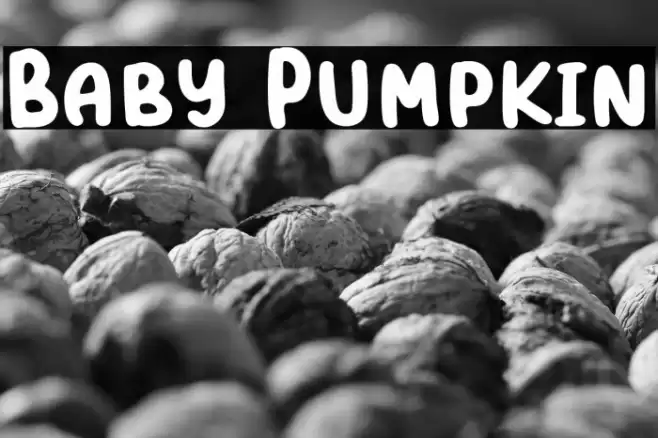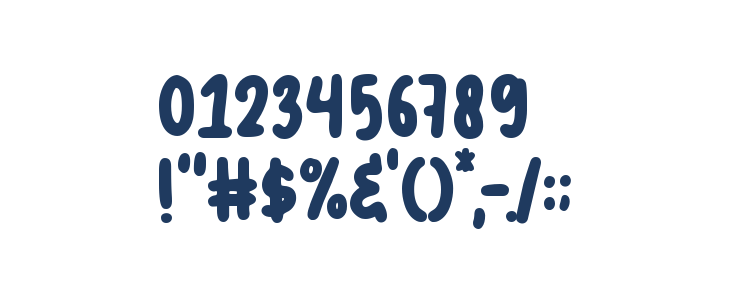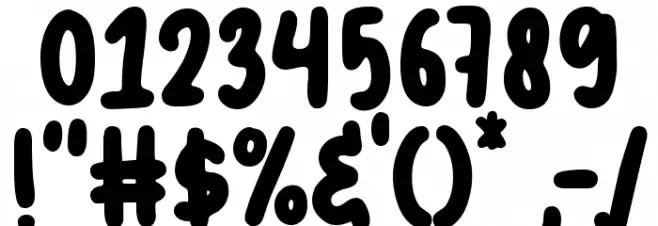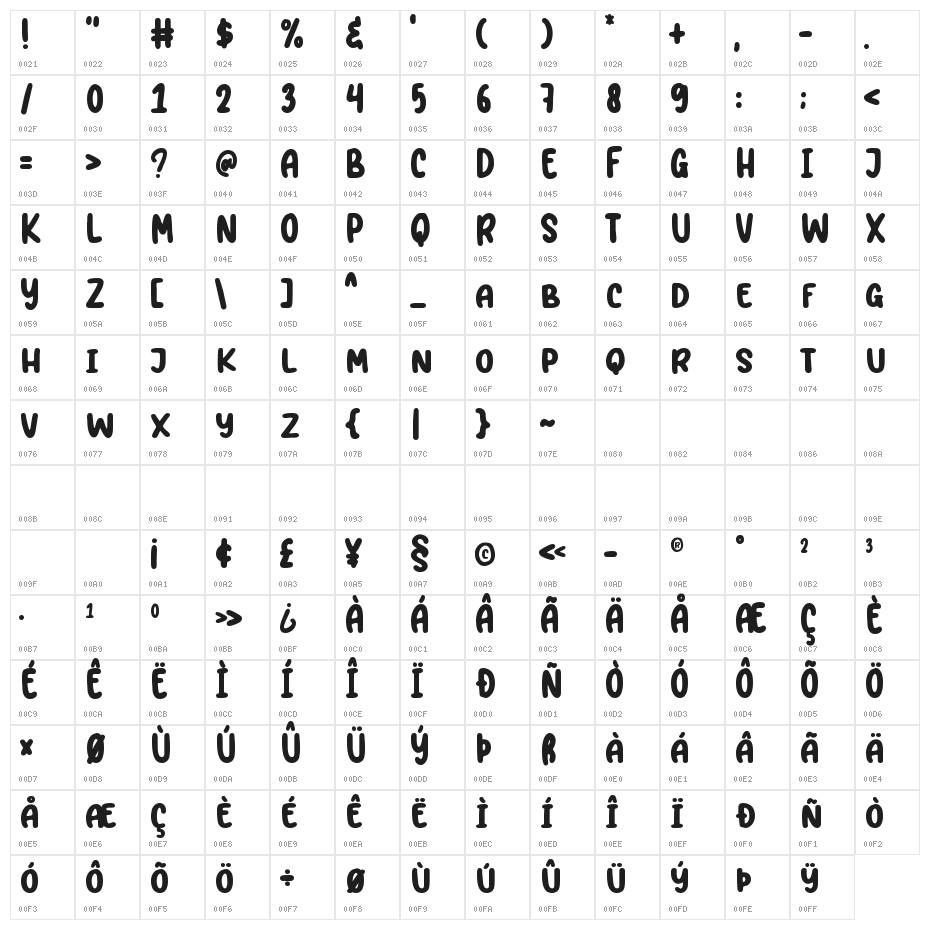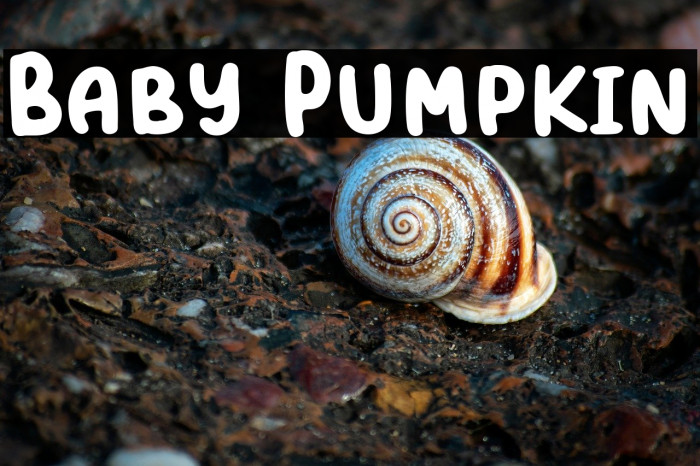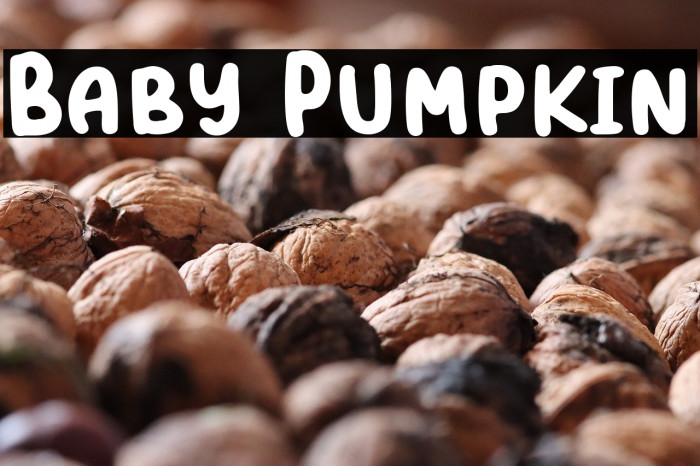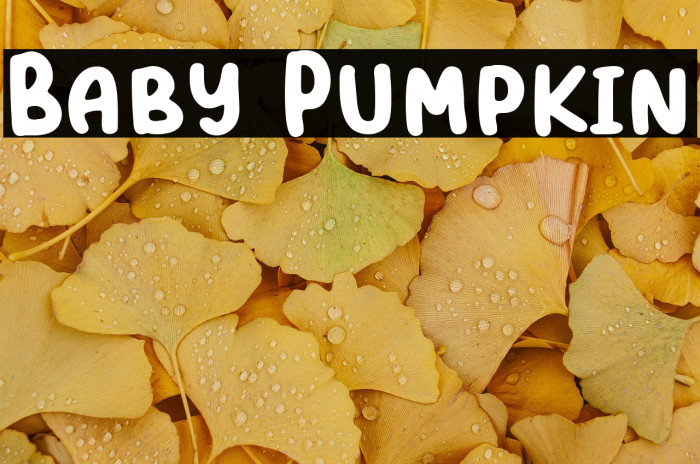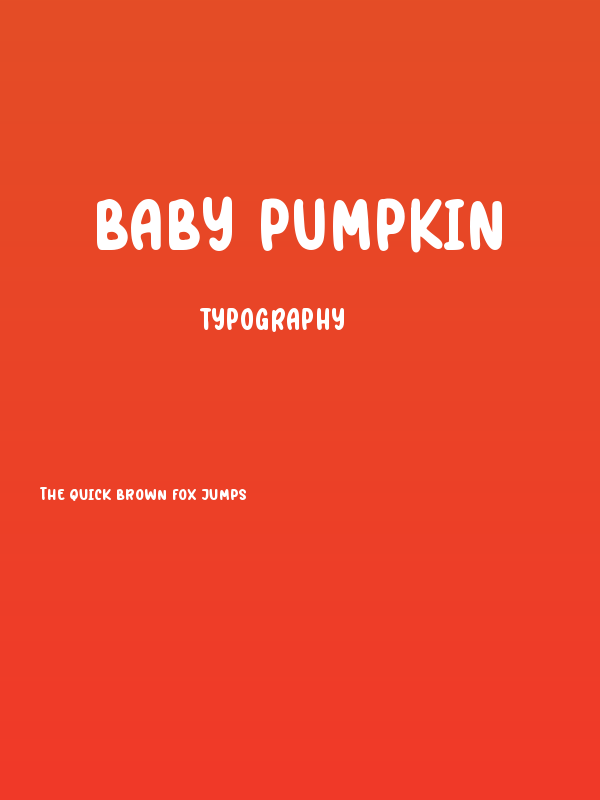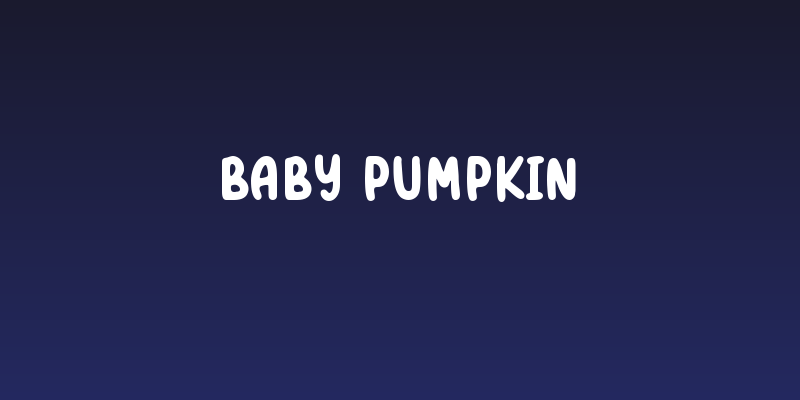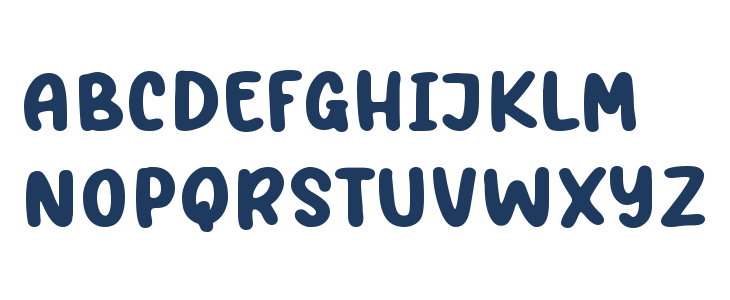
Baby Pumpkin Font
Baby Pumpkin Description
This playful and bold font features rounded, thick strokes that give it a friendly and approachable appearance. The characters are slightly irregular, adding a whimsical touch that is perfect for informal and fun designs. The uppercase and lowercase letters maintain a consistent style, with a smooth flow and rounded edges that enhance readability. The numbers and special characters are equally bold and playful, making them suitable for a variety of creative projects. This font's unique style makes it stand out, ideal for capturing attention in headlines or logos.
A bold, playful font with rounded, thick strokes and a whimsical style from Uncategorized fonts.
- Font: Baby Pumpkin
- Proposed Projects: Ideal for children's books, playful branding, party invitations, and creative posters.
- Overall Style: Playful, Whimsical